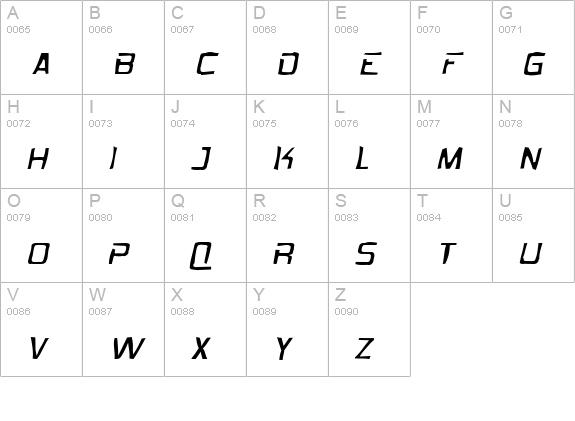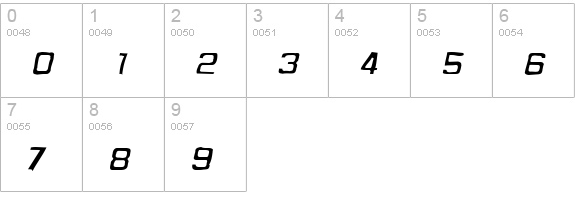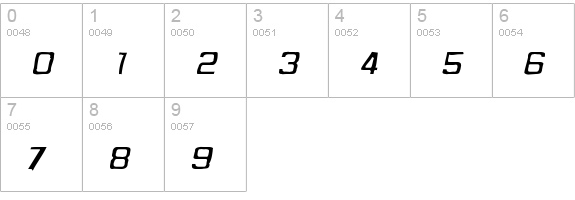
Hemi Head Gaunt Font Details
Hemi Head Gaunt is a striking and bold display font that exudes power and strength. With its sharp edges and unique design, this font is perfect for headlines, titles, and branding projects that require a strong and impactful look. The tall and narrow letterforms of Hemi Head Gaunt make it stand out from the crowd, commanding attention and leaving a lasting impression. What's even better is that Hemi Head Gaunt is available for free download at FontsMarket.com. Whether you're a designer looking to add a touch of boldness to your projects or a business owner in need of a standout font for your branding, Hemi Head Gaunt is the perfect choice. Download it now and elevate your designs with this eye-catching typeface.